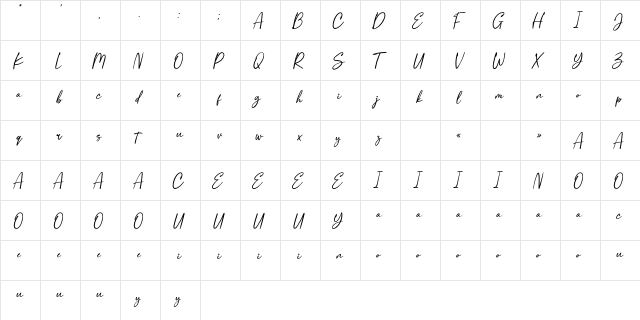
Raimont Personal Use
Design Context for Raimont Typeface
Raimont is a composed and adaptable typeface that performs quietly and consistently across a wide range of design contexts.